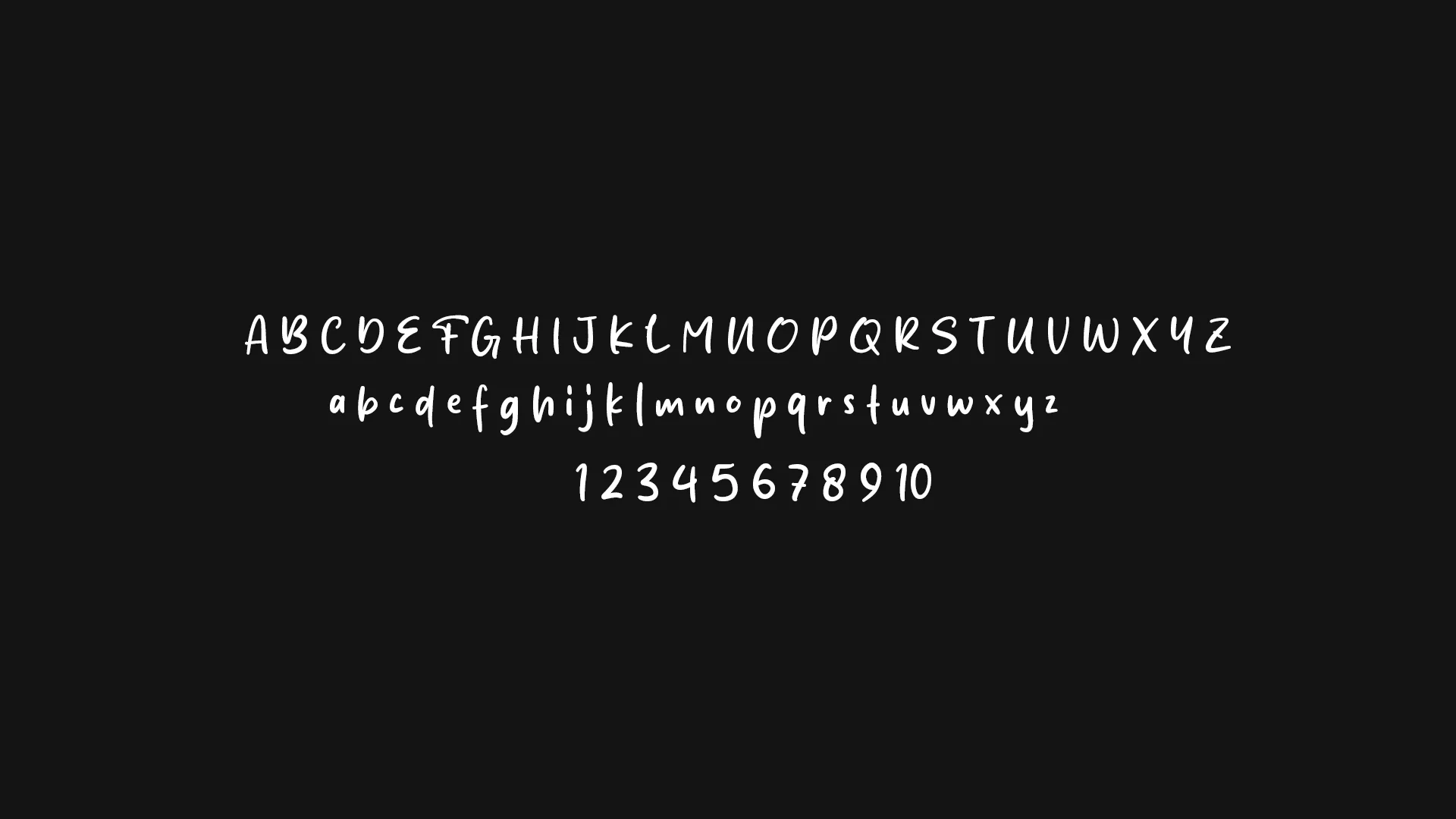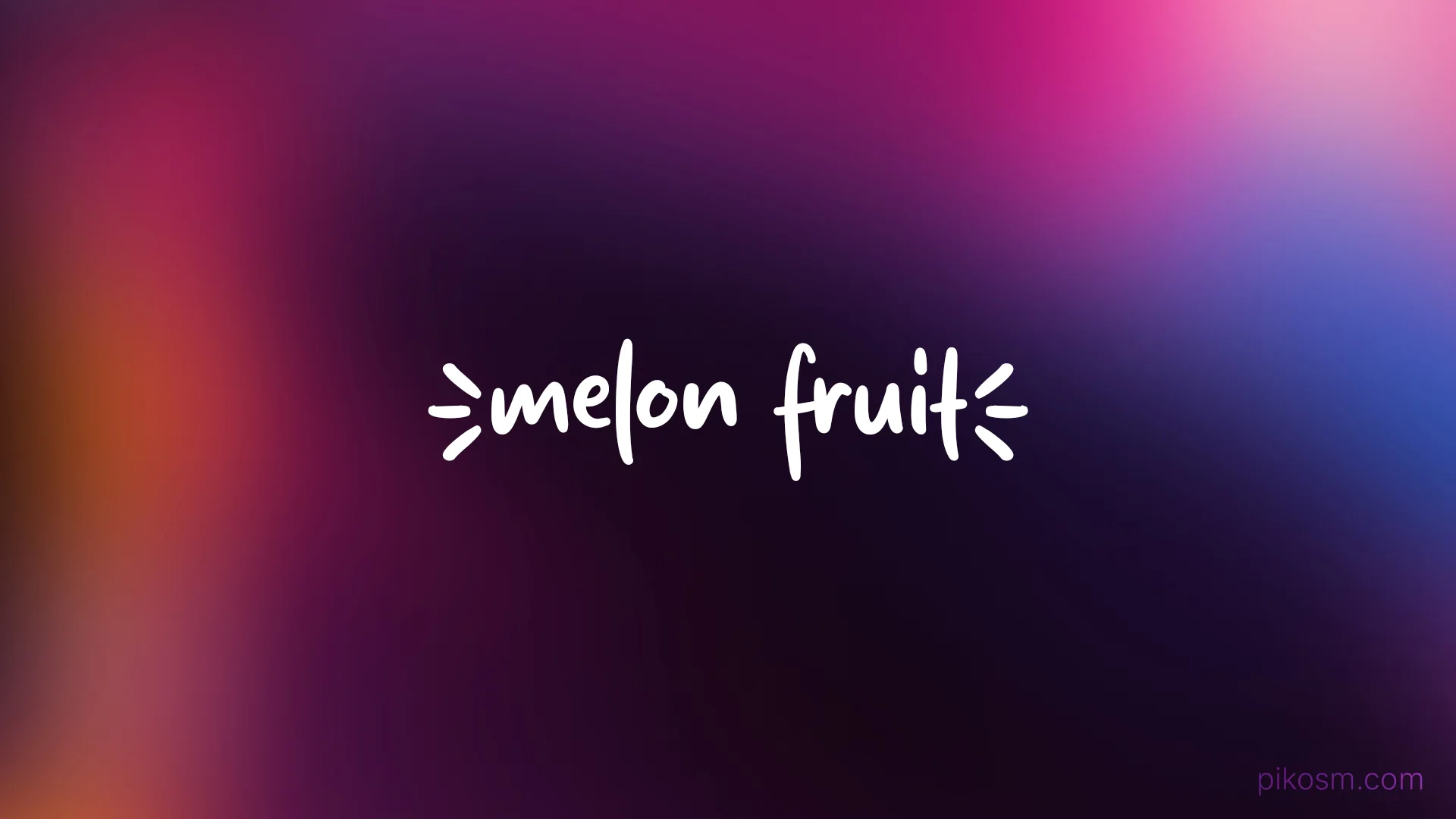
The Melon Fruit Font is a fun and stylish handwriting font that adds a fresh and playful touch to any design. Perfect for logos, social media posts, invitations, packaging, and creative projects, this font combines elegance with a casual charm that makes your designs stand out.
- Uppercase and Lowercase letters
- Numbering and Punctuations
- Multilingual Support